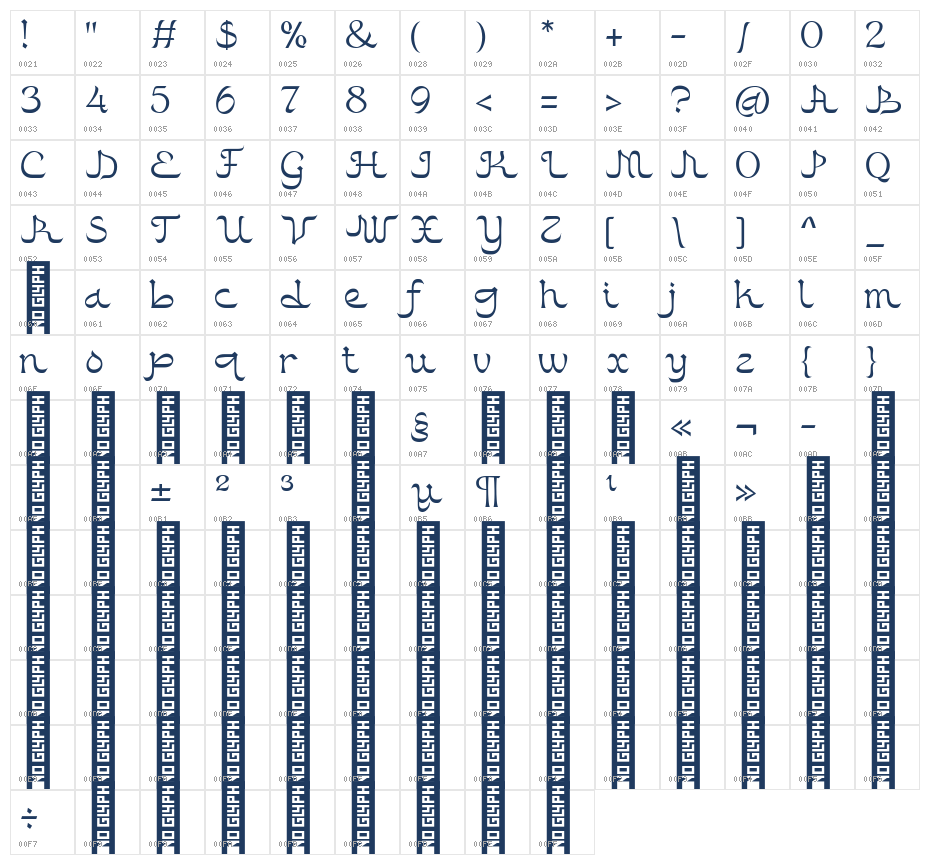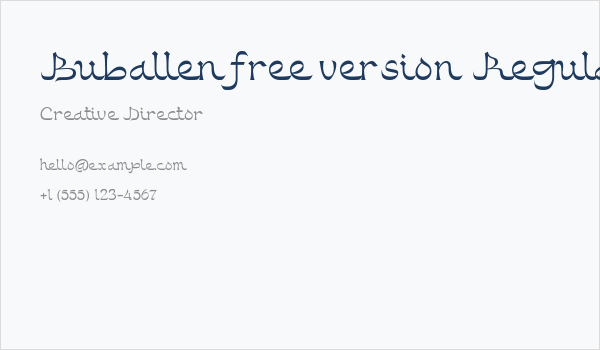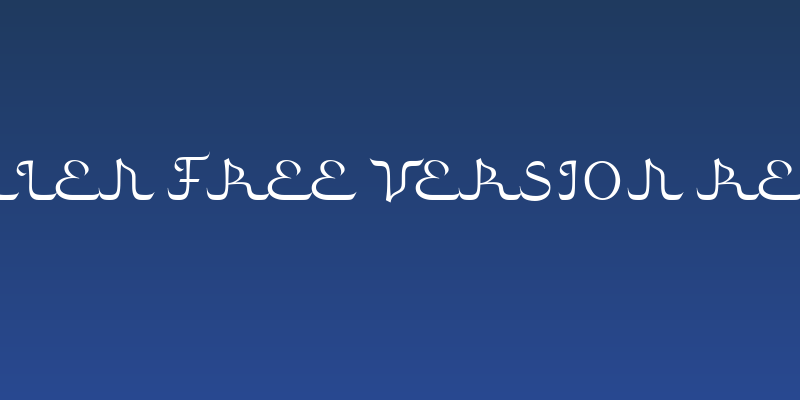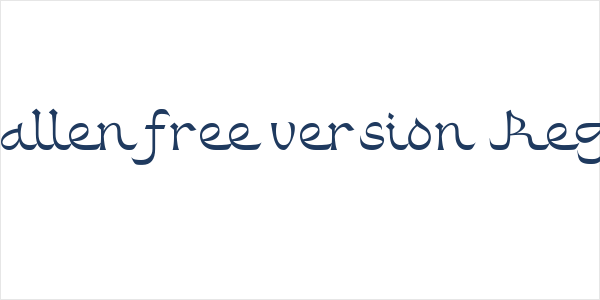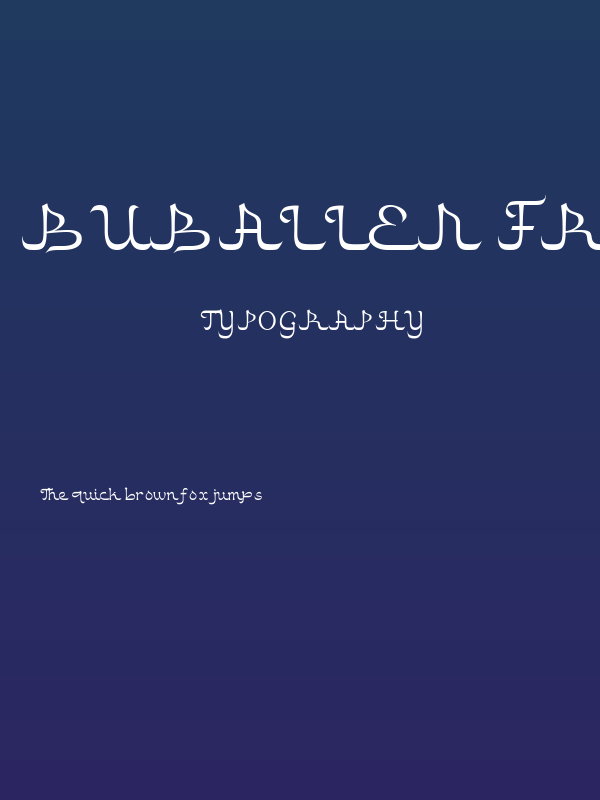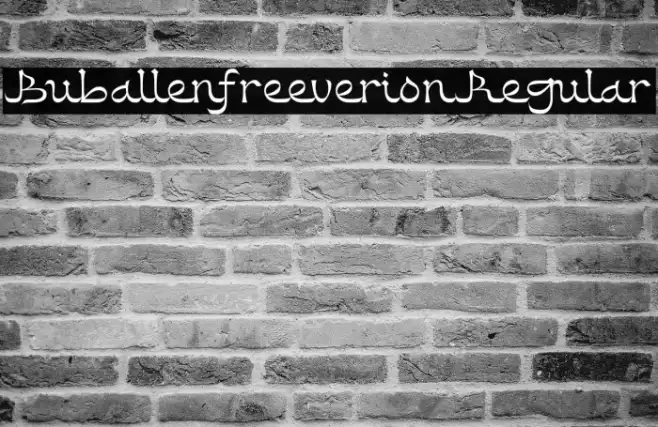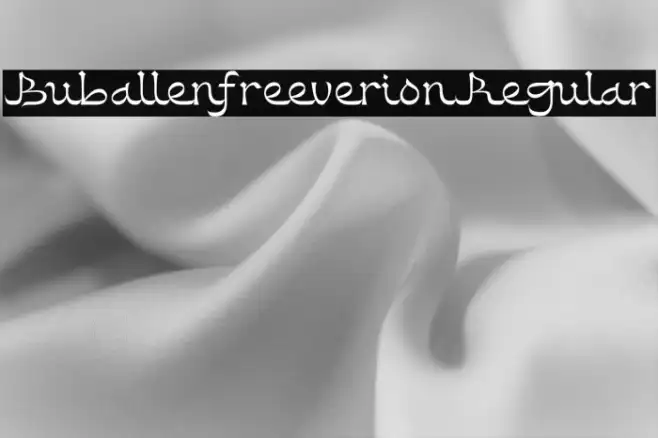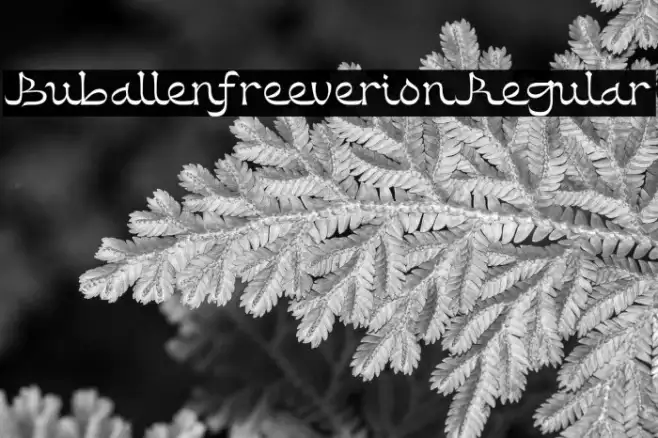
Buballen free version Regular Font
Buballen free version Regular Description
A whimsical, handwritten style font with playful, irregular strokes and a casual appearance.
| Overall Style | Whimsical, Casual, Playful |
| Use Case | Headlines, Body text, Invitations, Creative projects |